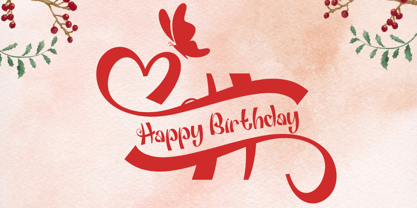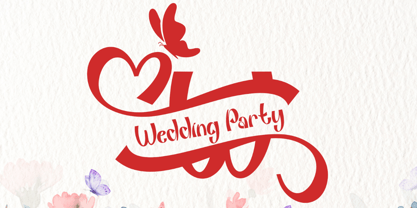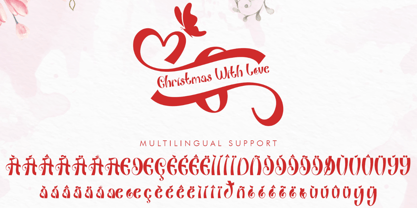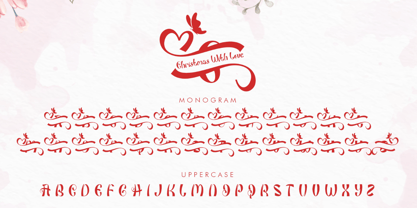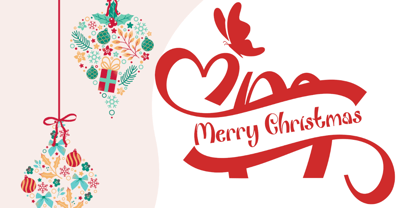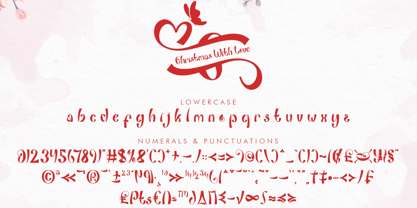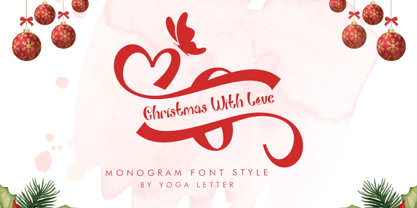
Christmas With Love
by Yoga Letter
The Christmas With Love Font Family was designed by Isroni Yoga Prasetya and published by Yoga Letter. Christmas With Love contains 2 styles and family package options. More about this family
"Christmas With Love" is a beautiful and cute monogram font. It features uppercase and lowercase letters, monograms, numerals, punctuations, and multilingual support. It's perfect for Christmas, fall, autumn, Halloween, Valentine's Day, weddings, invitations, winter, summer, Easter, engagements, print, spring, t-shirts, logos, posters, business branding, social media, and more.
Designers: Isroni Yoga Prasetya
Foundry: Yoga Letter